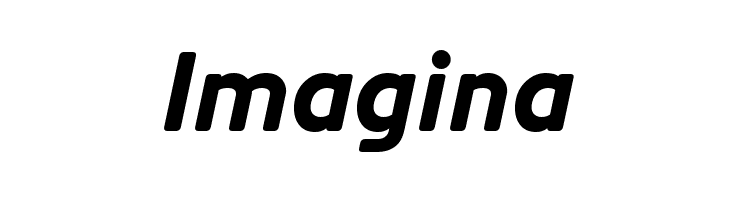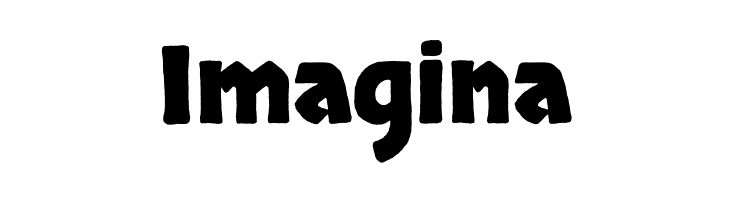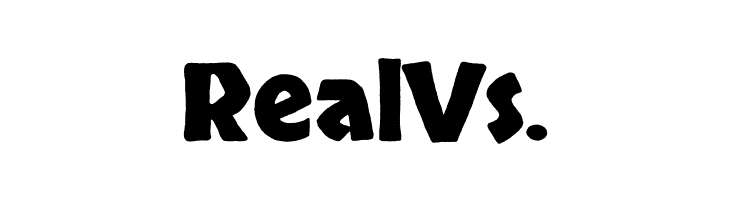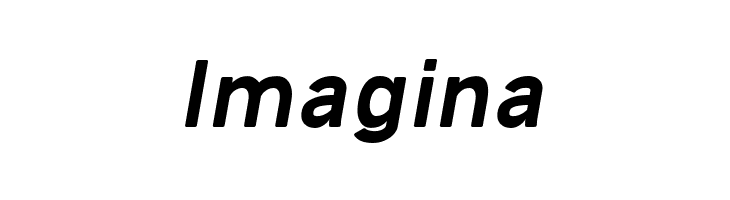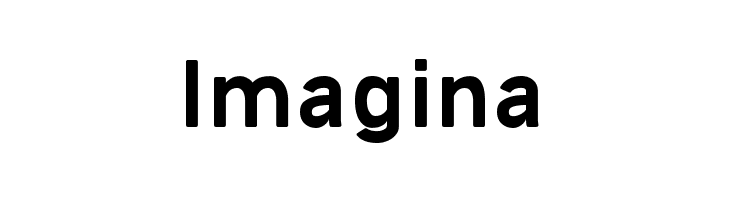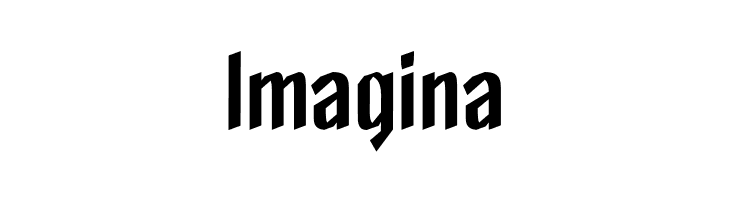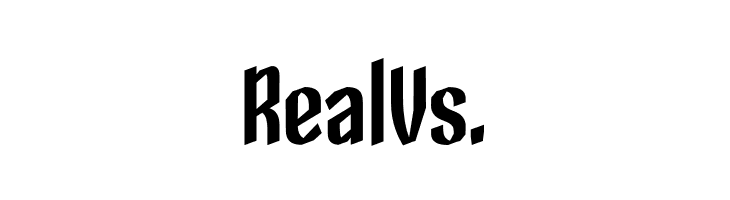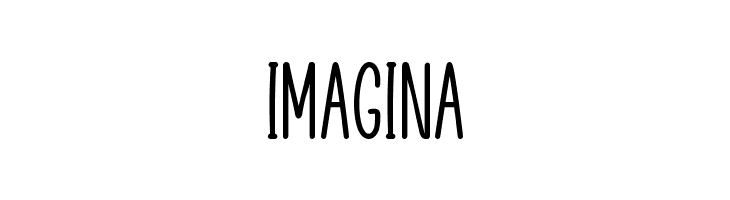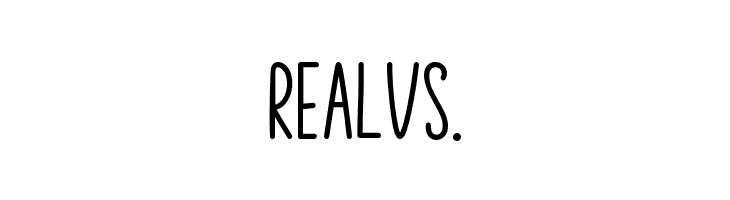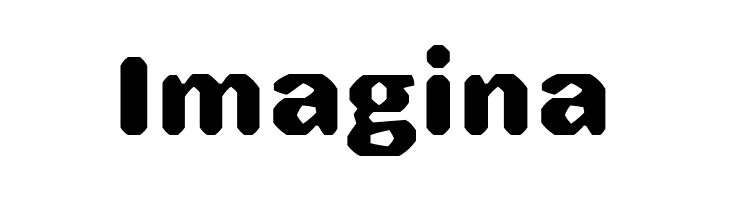
A bold, oblique monospaced font with a modern and dynamic style.
A bold, rounded typeface with smooth curves and a friendly appearance.
A bold, rounded, and italic font with a friendly and dynamic style.
A bold, modern sans-serif font with rounded edges and uniform stroke weight.
A bold, italic sans-serif font with smooth, rounded edges and a modern look.
A bold, modern sans-serif font with clean lines and balanced spacing.
A bold, italicized font with a modern, dynamic style and angular cuts.
A bold, modern sans-serif font with clean lines and balanced proportions.
A modern, bold, and italic sans-serif font with a sleek and dynamic style.
A bold, modern sans-serif font with excellent legibility and versatility.
A bold, modern sans-serif font with high contrast and slightly condensed width.
A bold, robust font ideal for impactful and commanding designs.
A bold and italic font with high contrast and strong presence.
A bold, angular font with a modern and dynamic style.
A bold, gothic-inspired font with a strong, medieval aesthetic.
A bold, sketch-style font with a playful, hand-drawn appearance.
A tall, slender, and playful font with consistent strokes and a modern style.
A bold, scratchy, hand-drawn font with a dynamic and textured appearance.
A bold, jagged font with an energetic, hand-drawn appearance.
A bold, italic font with a dynamic and rugged style.
A bold, playful font with rounded edges and a hand-drawn feel.
A bold, italicized font with angular, edgy characters.
A bold, decorative font with skull motifs, ideal for edgy designs.
A bold, dynamic font with sharp angles and high contrast.
A bold, futuristic font with sharp, angular edges and a geometric style.